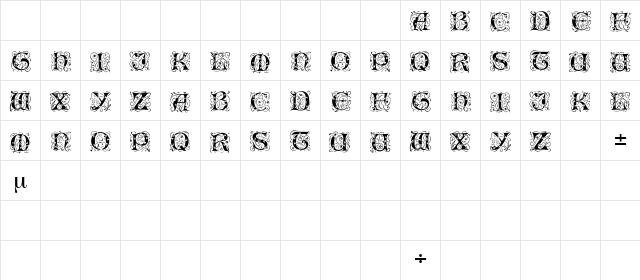
IlluminatiTwoDisplayCapsSSK Regular Font Preview
IlluminatiTwoDisplayCapsSSK Regular
IlluminatiTwoDisplayCapsSSK Regular Font Details
Design Context for IlluminatiTwoDisplayCapsSSK Typeface
IlluminatiTwoDisplayCapsSSK is built around its visual character rather than neutral utility — its distinctive forms are designed to make an impression at display sizes.
Font Pairing: Pair with a clean neutral sans-serif for body copy to let IlluminatiTwoDisplayCapsSSK's character lead without overwhelming the composition.
Pro Tip: Use IlluminatiTwoDisplayCapsSSK exclusively at display sizes — it was designed to be seen, not read at length. Let a neutral companion handle body copy.